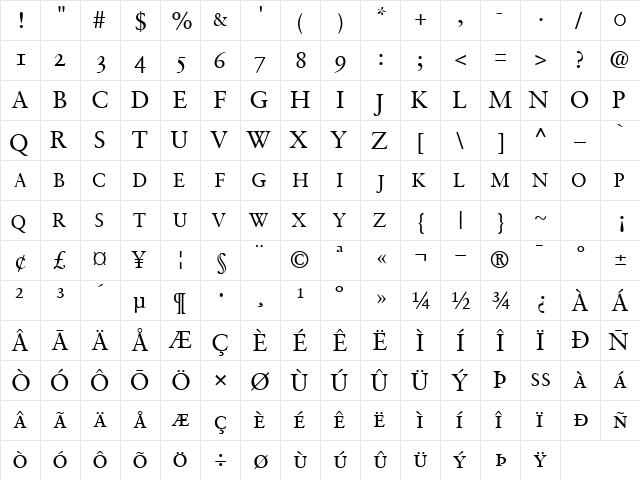
GaramondRetrospectiveOSSCapsSSK Regular
Design Context for GaramondRetrospectiveOSSCapsSSK Typeface
GaramondRetrospectiveOSSCapsSSK wears its vintage influences proudly, with letterforms that recall mid-century signage, classic packaging, and nostalgia-driven design.
Font Pairing: Combine GaramondRetrospectiveOSSCapsSSK with a simple slab or neutral sans — period-accurate companions reinforce the vintage feel without competing for attention.
Pro Tip: Use GaramondRetrospectiveOSSCapsSSK for headlines and pull quotes rather than body copy — its personality is best appreciated in short, focused bursts.